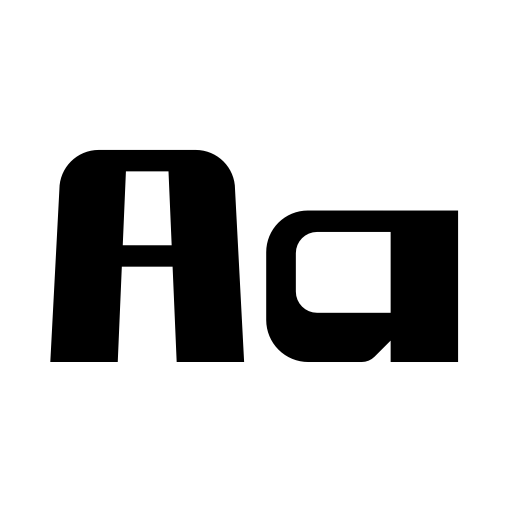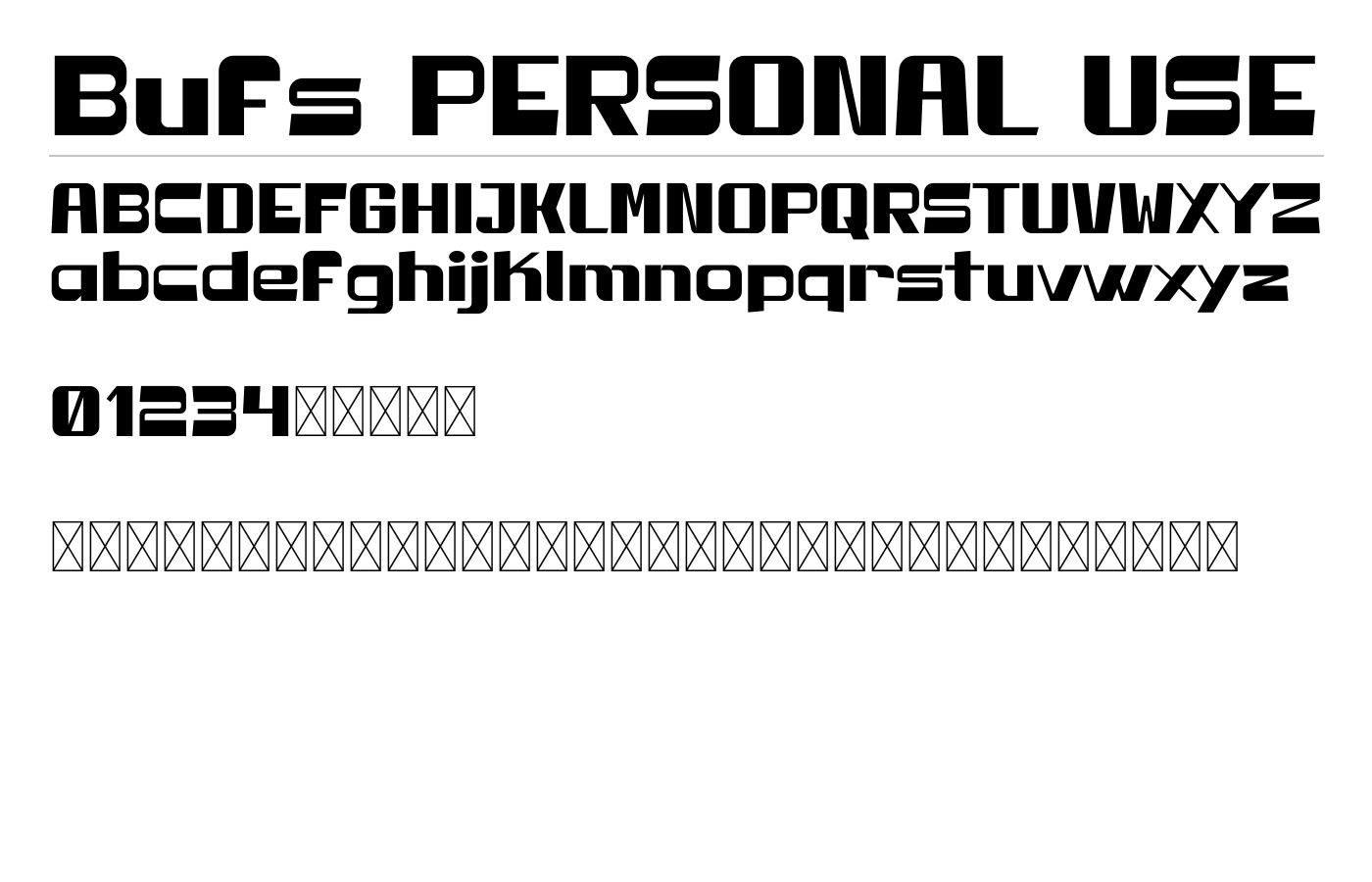
Bufs is a bold, condensed sans serif font with a modern, geometric style that features strong stroke contrast and sharp angles, giving it a dynamic and futuristic feel. Its unique letter shapes and compact design make it ideal for impactful headlines, branding, and projects that require a tech-savvy or urban edge. This font works well for logos, posters, and editorial uses where a striking, contemporary impression is desired.
Bufs PERSONAL USE Font